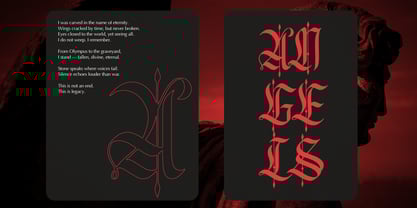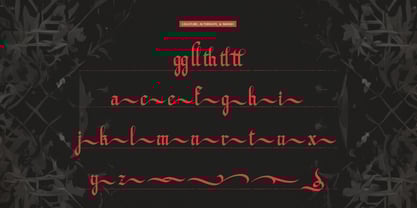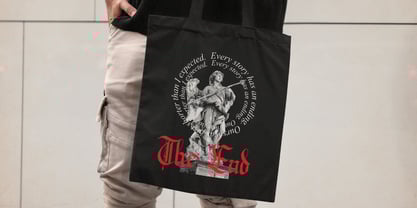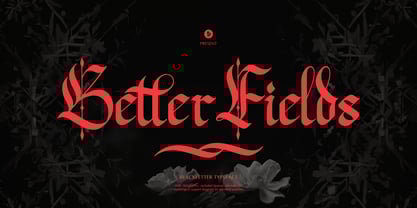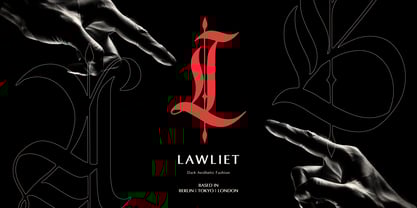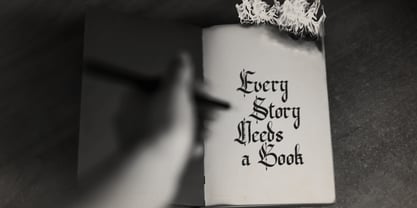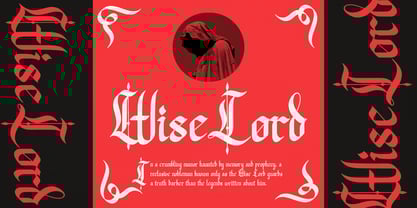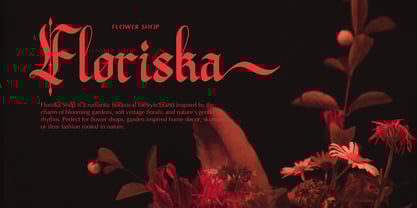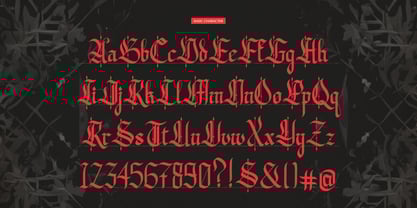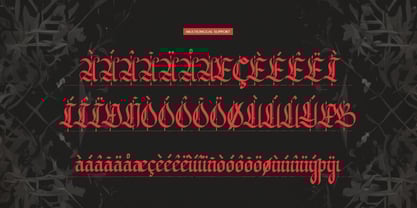
Better Fields
The Better Fields Font Family was designed by Dede Nugraha and published by Denustudio. Better Fields contains 1 styles. More about this family
Better Fields | Blackletter Typeface, from Denustudios, suitable for any projects such as: logos, branding projects, homeware designs, product packaging, mugs, quotes, posters, shopping bags, t-shirts, book covers, name card, invitation cards, greeting cards, label, photography, watermark, special events, and all your other lovely projects that need Blackletter Typeface a taste.
• Regular and Italic
• Standard glyphs
• Alternate and Ligature
• Fonts include multilingual support